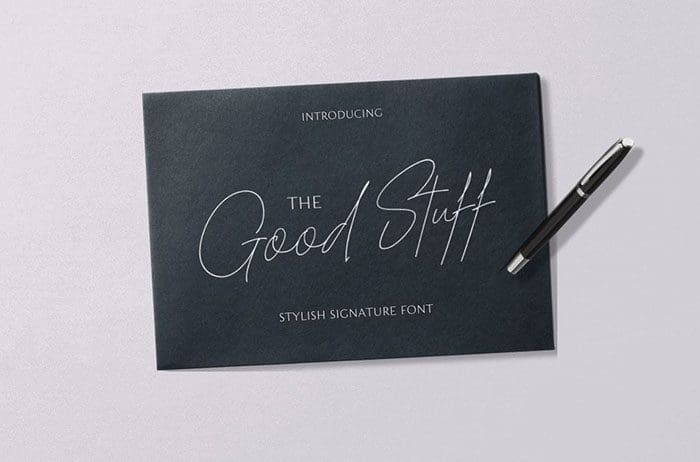
Good Stuff Signature Font
Good Stuff Signature font is a handwritten with a natural flow. This font is a good choice for branding, high-end, sophisticated branding design. This font is available only for personal use. Created this font by Epiclinez. You can also search more freeĀ Signature Fonts. Thanks.